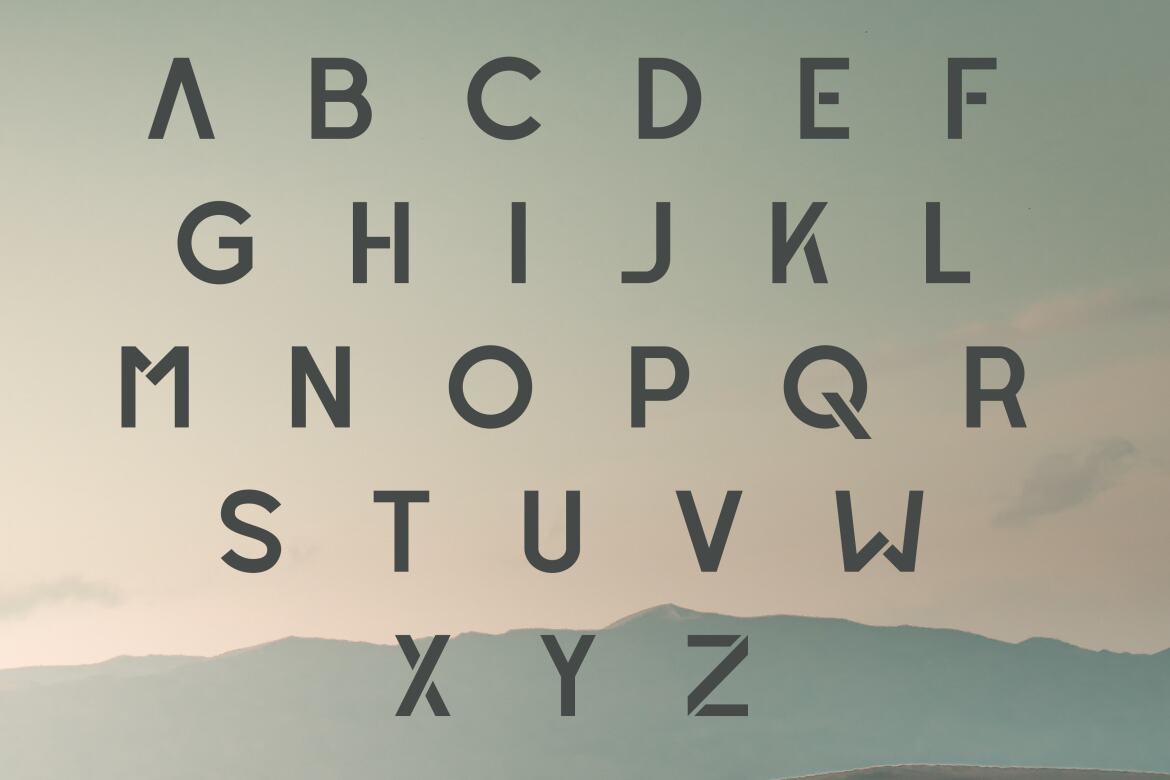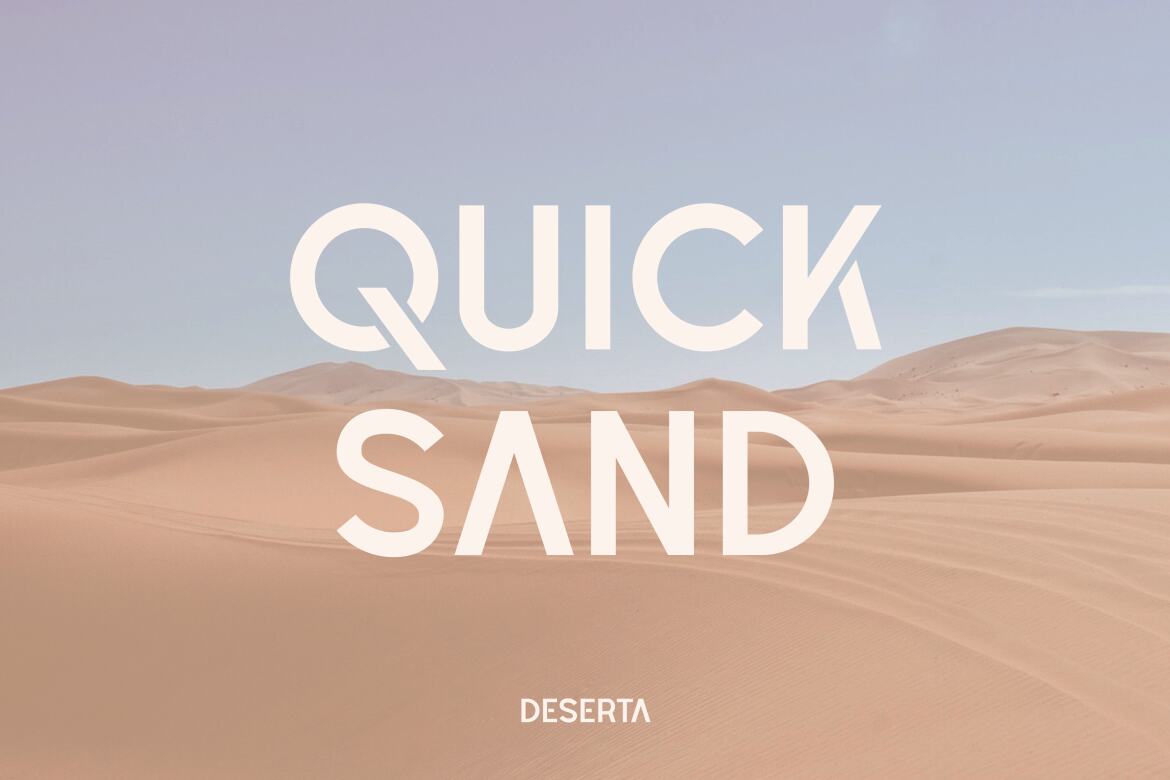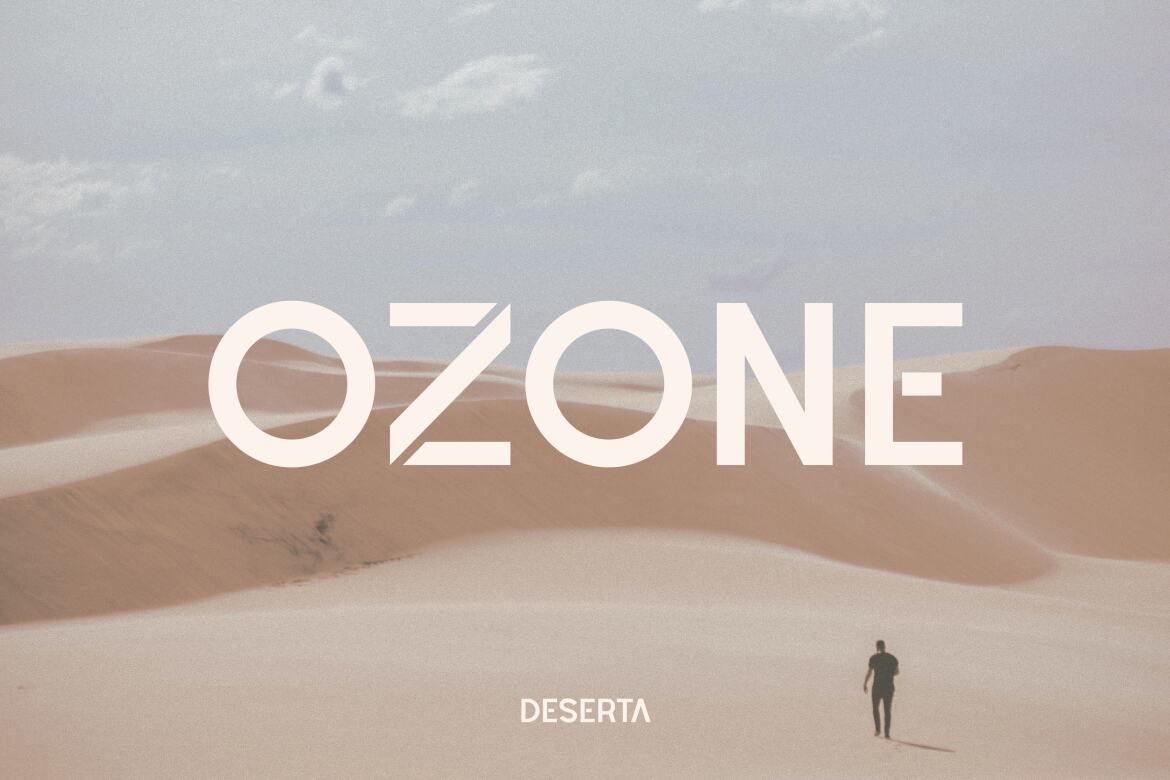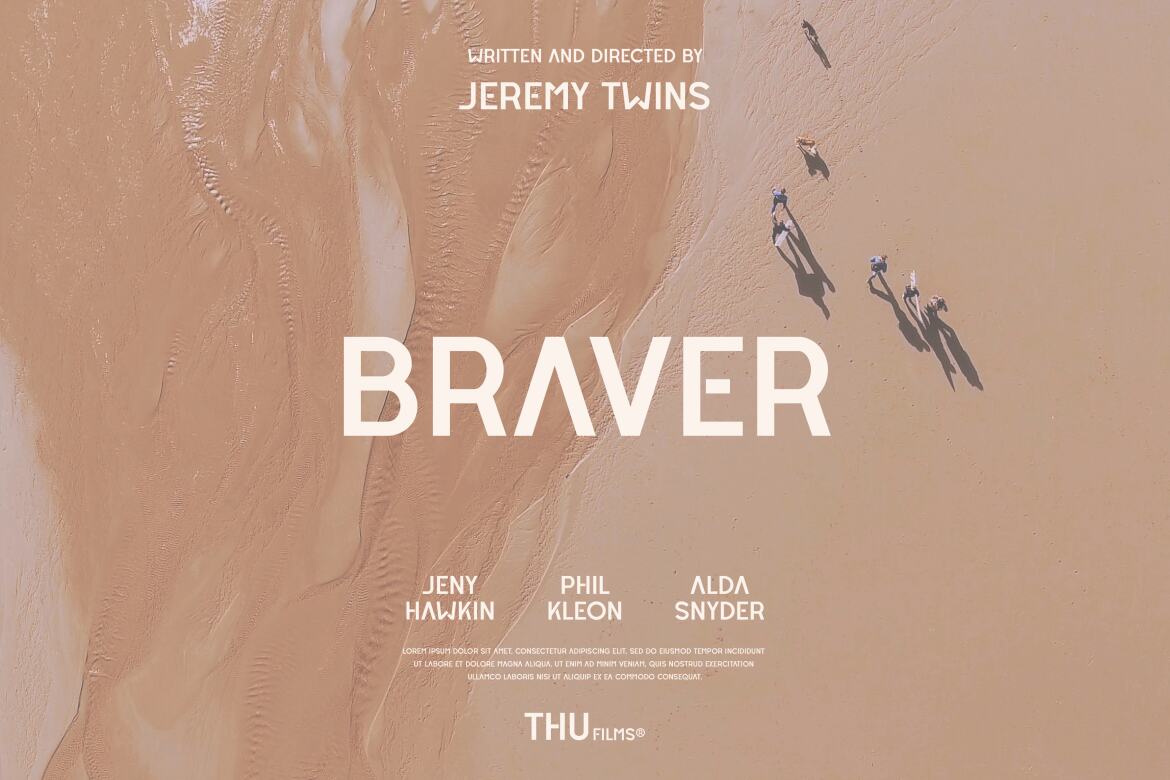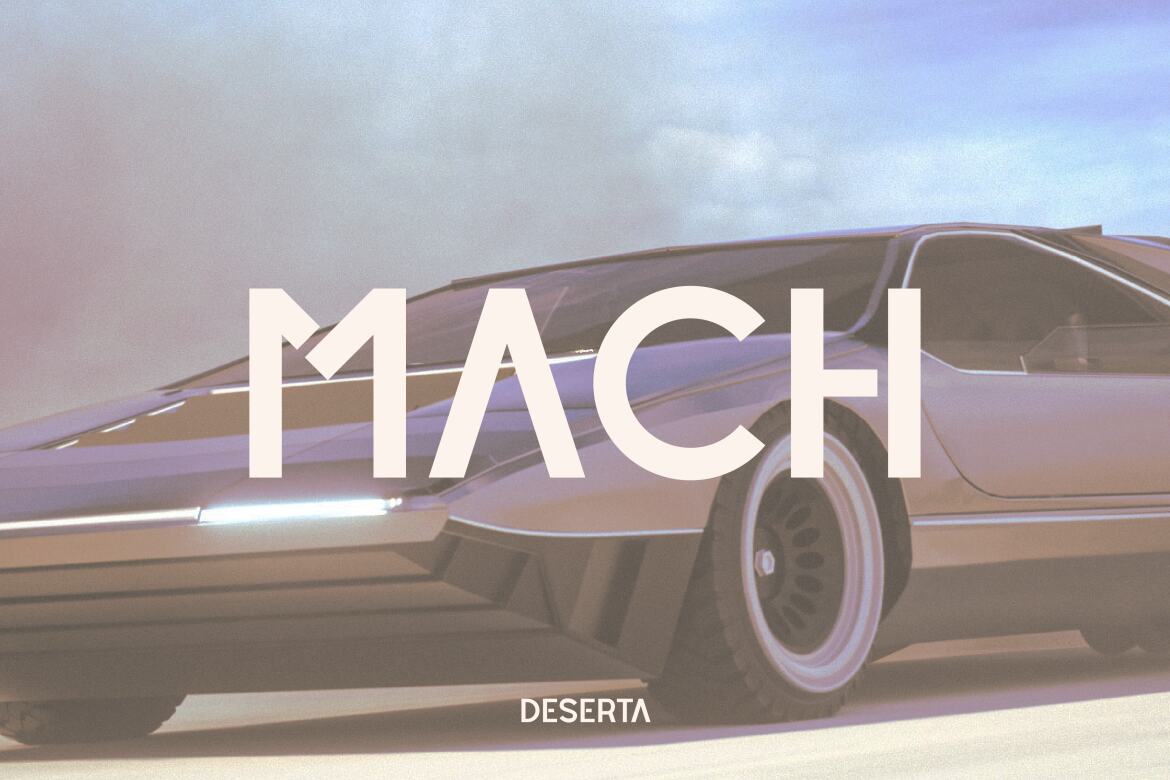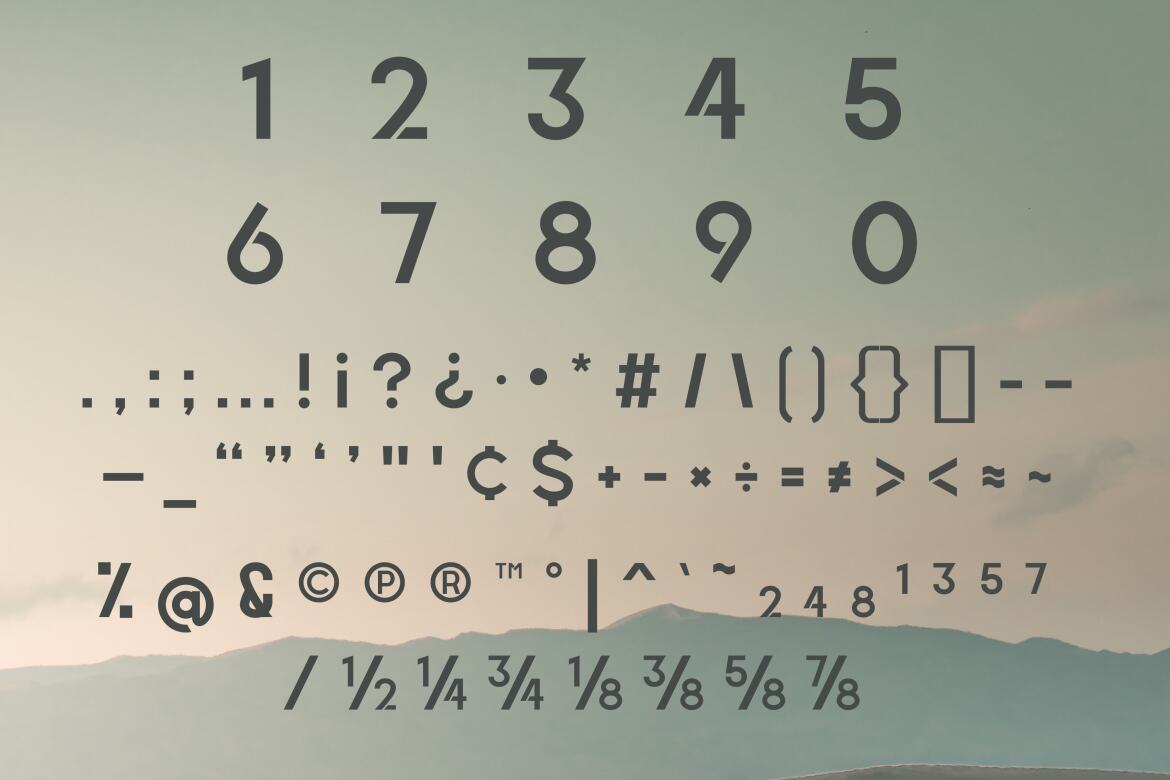
Deserta - FREE Modern Display Font
Deserta
Deserta is a modern typeface suitable for your modern style design projects.
• creative and modern typeface
• futuristic
• uppercase, numerals, punctuations, and symbols